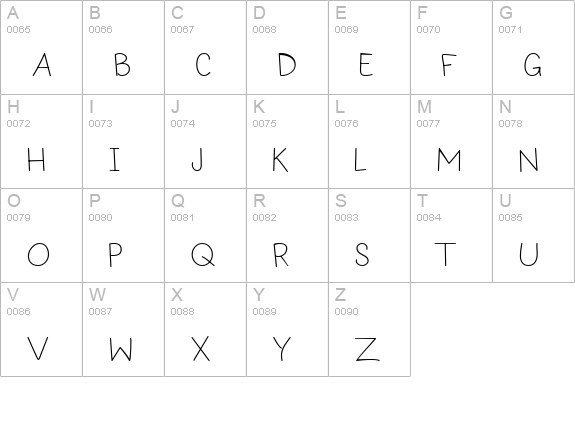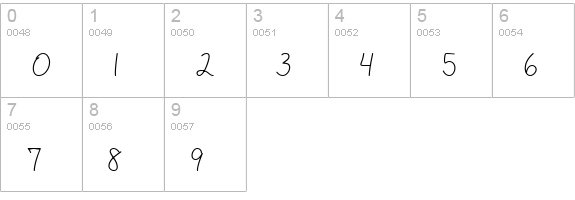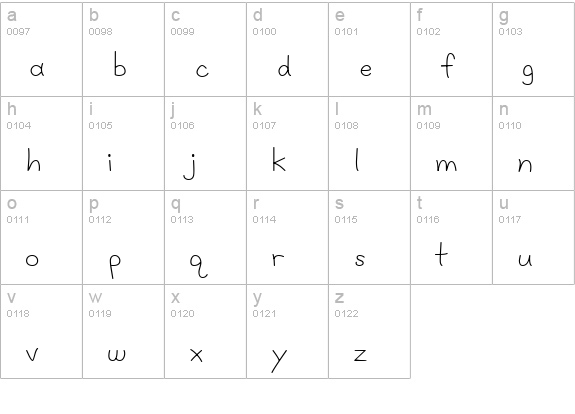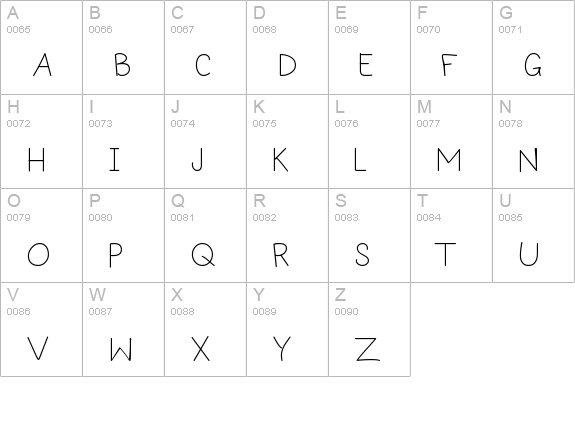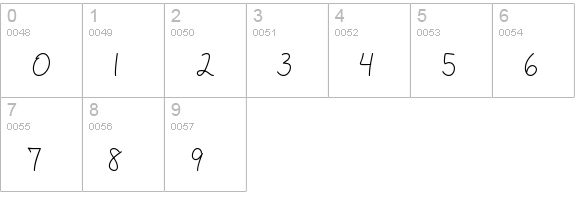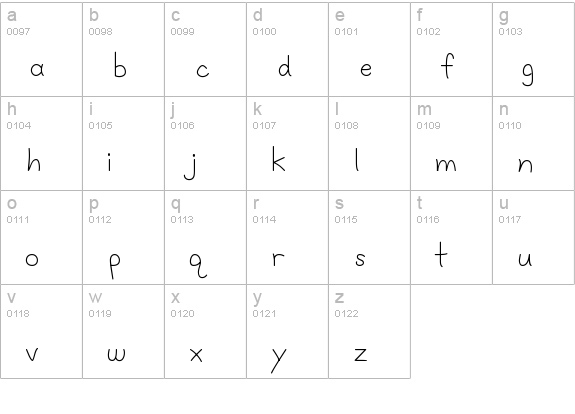
CK Simple Font Details
The CK Simple font is a timeless and versatile typeface that exudes elegance and sophistication. With its clean lines and modern aesthetic, this font is perfect for a wide range of design projects, from branding to editorial design. The CK Simple font is characterized by its simplicity and clarity, making it easy to read and appealing to the eye. Best of all, the CK Simple font is available for free download at FontsMarket.com. Whether you're a designer looking to add a touch of class to your projects or a business owner in need of a professional and stylish font for your branding, the CK Simple font is the perfect choice. Download it today and elevate your designs with this stunning and timeless typeface.